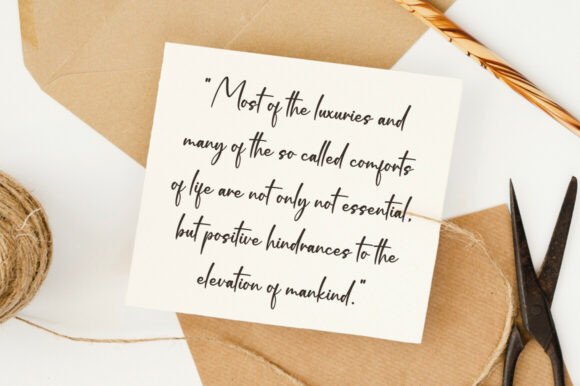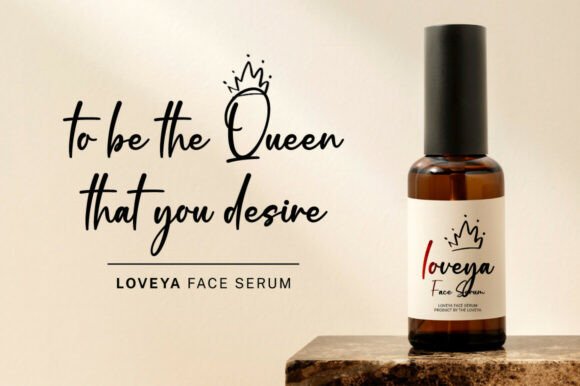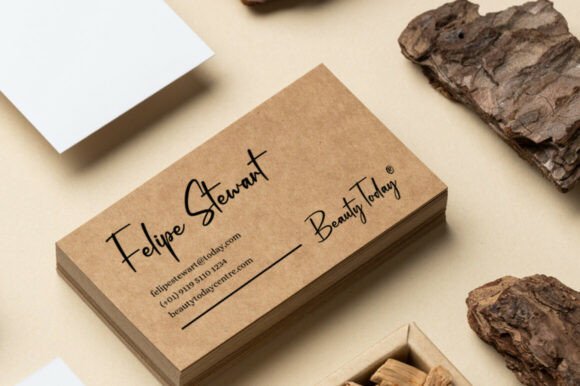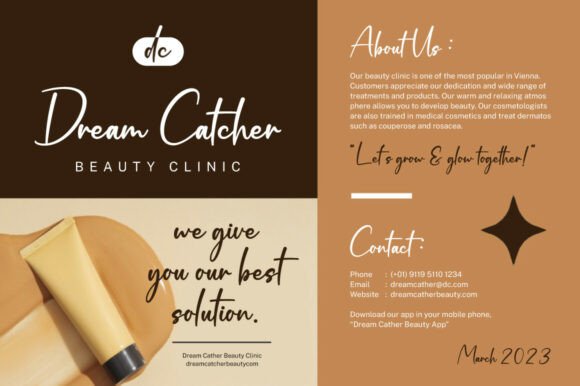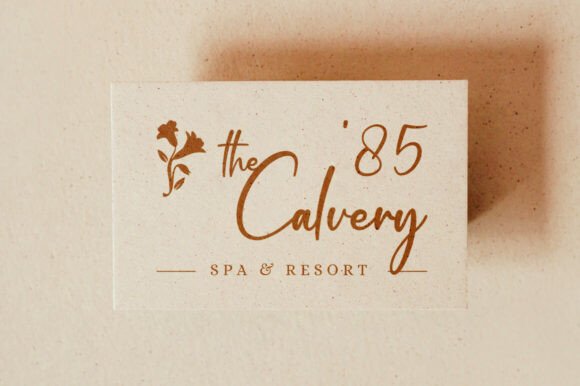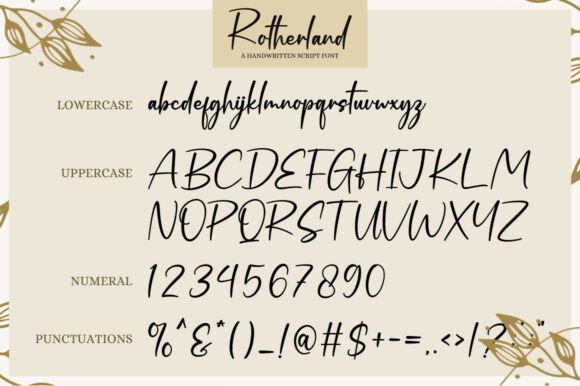
Introduction to Rotherland Font
Remember the thrill of discovering a new design resource that elevates your creative project? For many designers, that moment is what drives the passion for innovative and high-quality fonts. And for those who crave a unique, elegant style, the Rotherland Font is sure to be a game-changer.
Imagine a font that captures the essence of hand-drawn calligraphy with a modern twist, perfect for logos, invitations, packaging, and social media graphics. With its flowing strokes, graceful curves, and expressive letterforms, the Rotherland Font adds a touch of sophistication and artistic flair to any design. Whether you’re working on a free download or a paid project, this font is an invaluable asset for designers seeking to deliver visually stunning results.
Key Features of Rotherland Font
- Rotherland Font offers a unique, modern aesthetic with a transparent background, perfect for layering and customization.
- Features a clean and minimalist design, suitable for a wide range of creative projects, from logos to graphics and more.
Honest Review: Rotherland Font
I recently stumbled upon the Rotherland Font, and I must say it’s been a game-changer for my design projects. As a designer, I’m always on the lookout for high-quality fonts that can elevate my creative work.
- ✨ The font’s design is sleek and modern, making it perfect for a variety of design projects.
- ✨ The transparent background option allows for seamless integration with any background image or color.
- ⚠️ The font family is relatively small, with only a few weights and styles available.
- ⚠️ The font may not be suitable for very large or complex text blocks, as it can become difficult to read.
Overall, I’m impressed with the Rotherland Font. While it may have some limitations, its high quality and modern design make it an excellent addition to any designer’s toolkit. If you’re looking for a versatile and stylish font for your next creative project, I’d definitely recommend giving the Rotherland Font a try.
Tips for Getting the Most Out of Rotherland Font
To get the most out of Rotherland Font, use it consistently throughout your design. This will create a cohesive look and feel. You can also experiment with different font sizes and colors to add emphasis and visual interest.
Rotherland Font is perfect for creative projects, such as logo design, graphics, and typography-based designs. Its high quality design and transparent background feature make it a great resource for designers and non-designers alike.